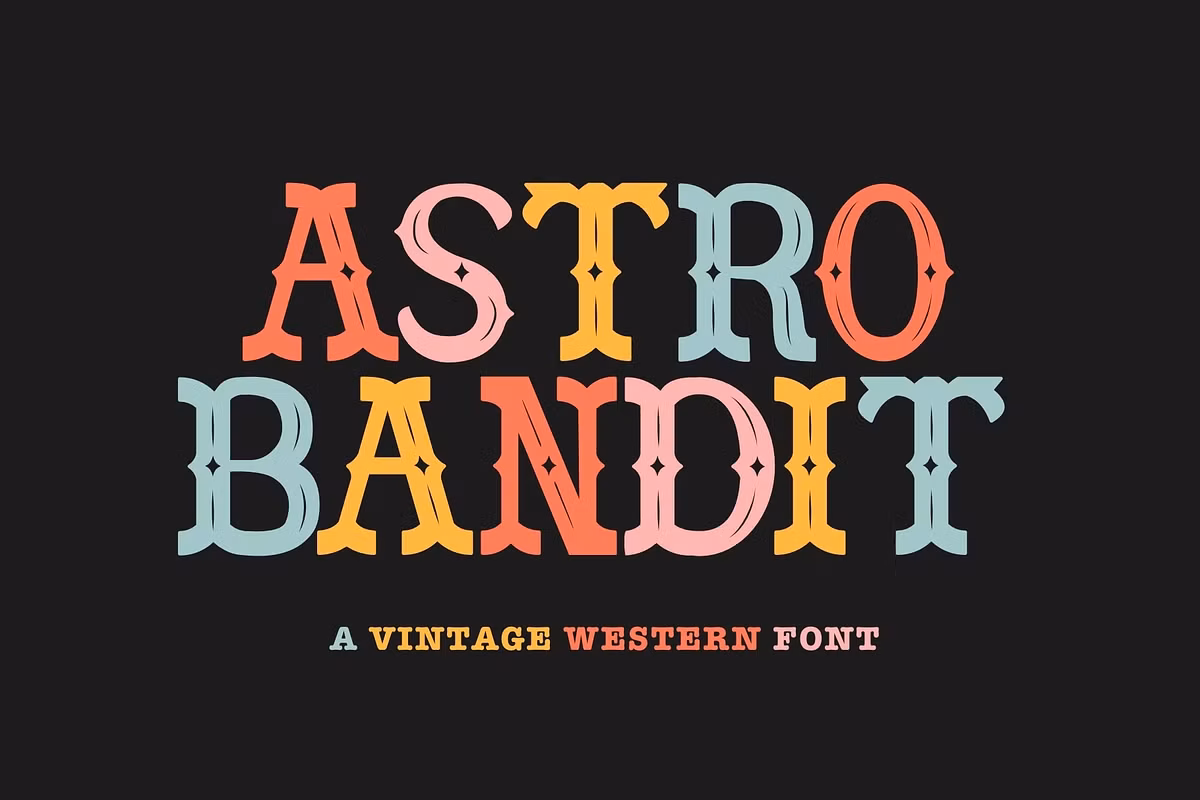
Astro Bandit Font - Serif Font Free Download
Astro Bandit Font - Serif Font Free Download is a bold and futuristic serif typeface that blends retro space vibes with strong, modern design. Ideal for logos, movie titles, posters, apparel, and branding projects that need a touch of cosmic attitude, this font makes a powerful visual impact.
Its sharp serifs, geometric shapes, and high contrast details create a unique look that stands out in both print and digital formats. Astro Bandit supports multilingual characters, includes standard punctuation, and works seamlessly on both Mac and Windows platforms.